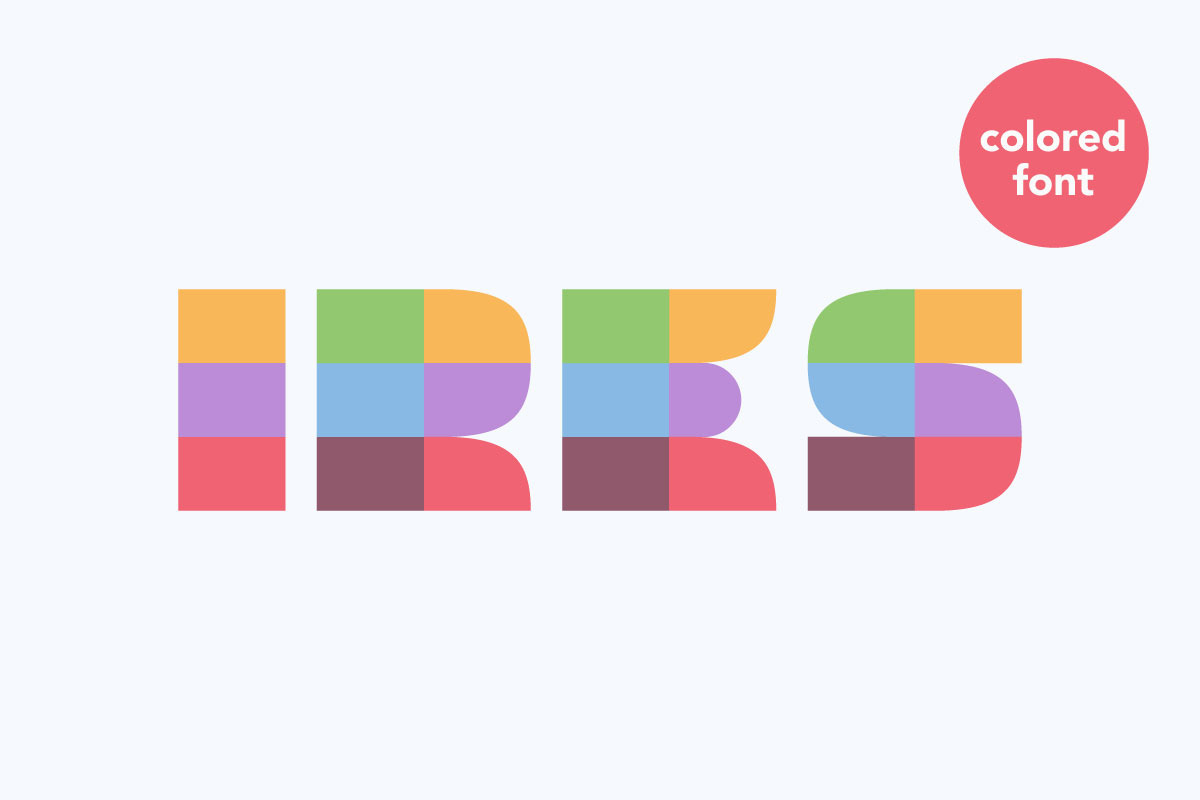
Ires colored font
Hello guys! I’m here again with my new colored font Ires. All letters in this font are colored pretty dim colors. It perfect to use in your cute corporate identity, greeting packaging, wedding posters, clothes design, and others. There is the regular style too.
- Colored style
- Regular line style
- Uppercase only